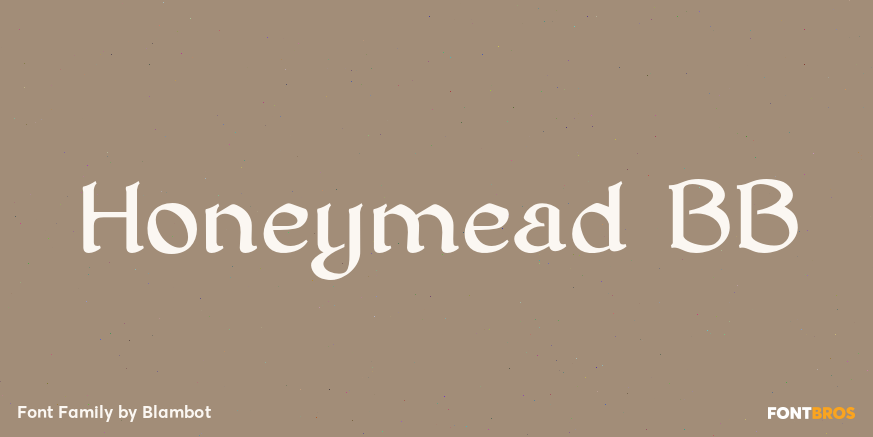
About Honeymead BB
Wandering somewhere between Roman and Uncial, HoneyMead BB is a body copy font that likes to put its feet up by a roaring fire and enjoy a tall flagon with men and elves alike. Comes with Regular, Italic, Bold, Bold Italic, and a hefty compliment of European…